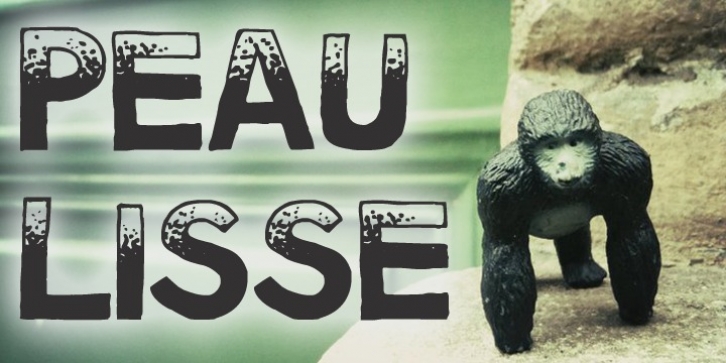
Peau Lisse is a font that will come handy when adding notes to a document that lacks a little something, the last touches on formality to make your document look a little more fun. With its two tones, it will attract the eye and launch small comments where people expect it the less...